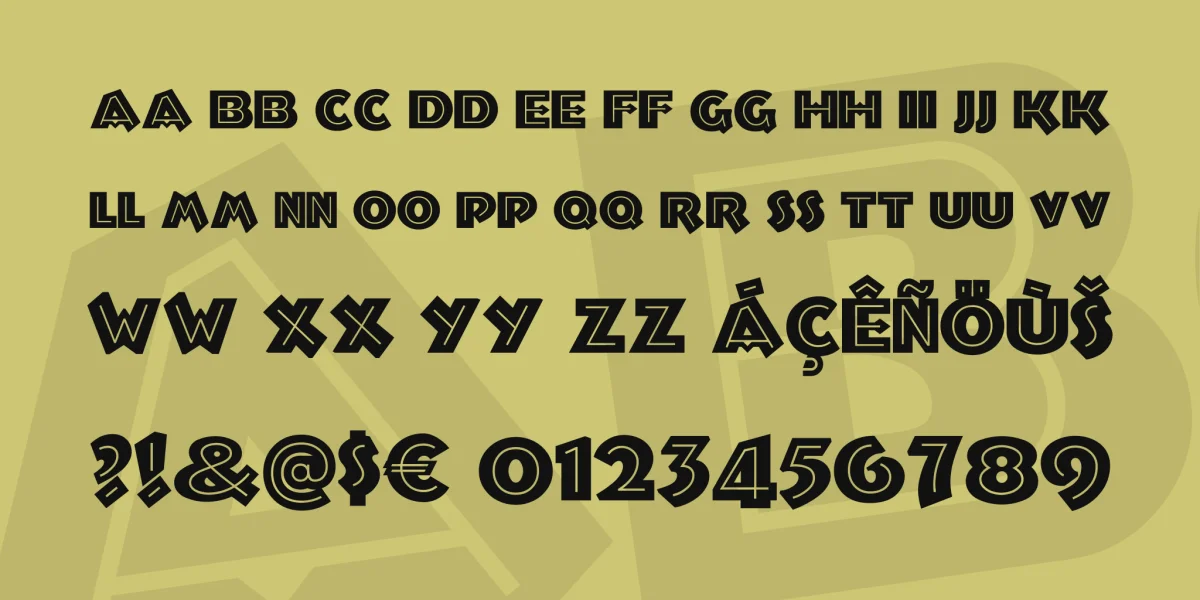
This fine fat face is based on a font called Advertisement Grotesque, discovered in a 1942 book entitled Lettering Alphabets for Draughtsmen, Advertisement Designers, Architects & Artists (have we covered everyone here?), by the intrepid Alfred Bastien.